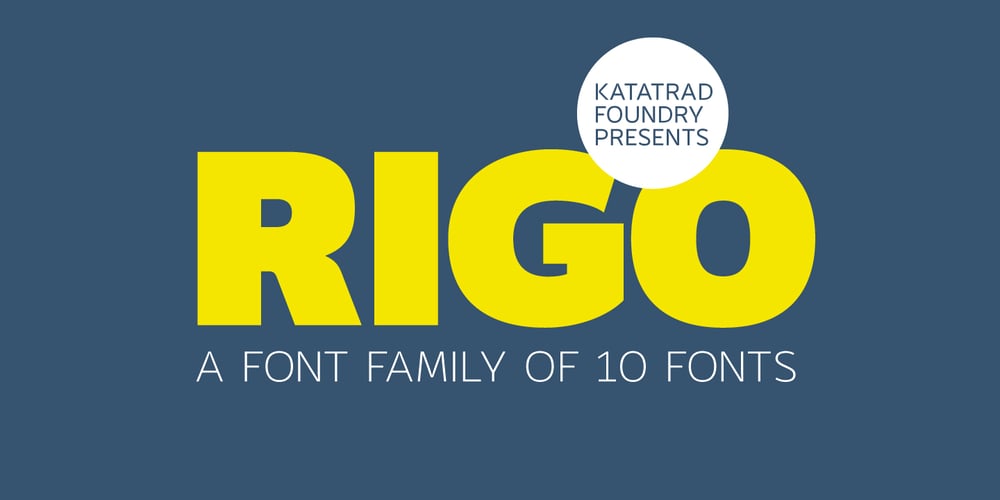
Rigo
Rigo font
Rigo Font Family was designed by Thanarat Vachiruckul and published by Katatrad. Rigo contains 10 styles and family package options. Rigo™ is a flexible family of modern sans serif. Rigo is characterized by some humanistic characteristics, its open part of negative space and its overall width make it highly legible and readable at small to large size. The openness helps Rigo to be a good performer on the screen as well.